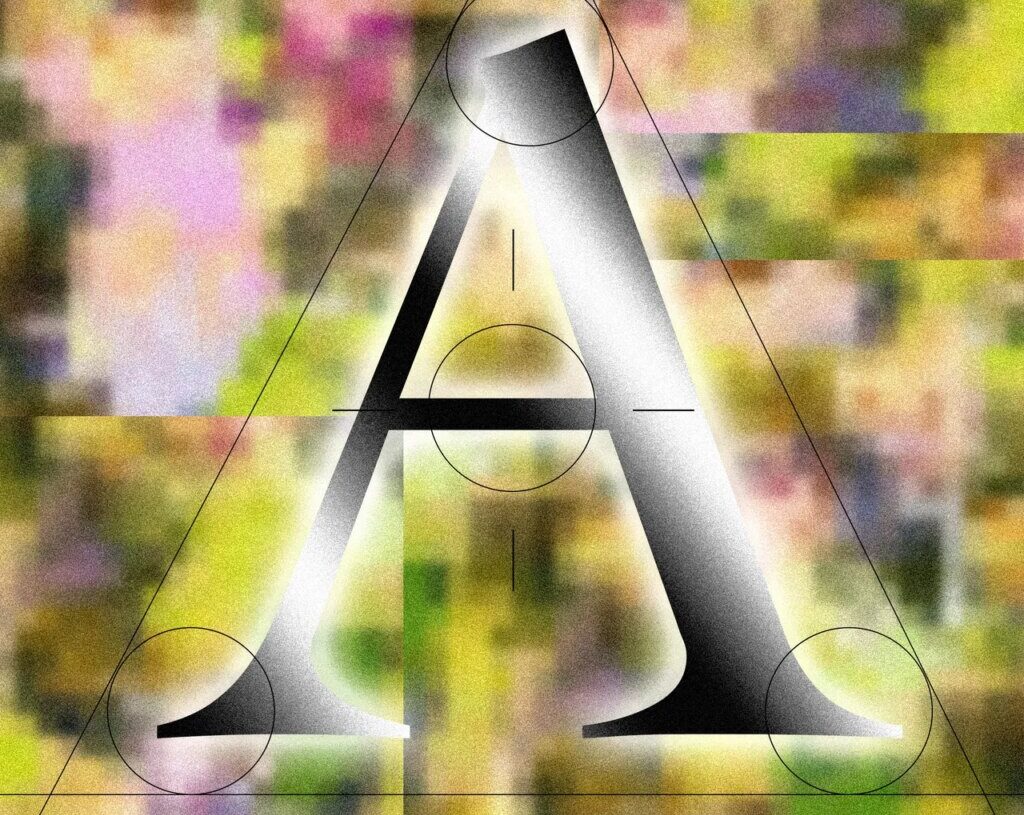
As public backlash to the seeming omnipresence of artificial intelligence intensifies, the collective quest to weed out—and reject—telltale signs of its use continues.
One of the first casualties, to my dismay, was em dashes—which are a great, and very human form of punctuation, by the way! There’s also the “rule of threes,” which is meant to scan as rhythmic, but often comes across predictable, hackish, and stale. And, of course, there are the clunky grammatical constructions of the “not X, but Y” variety.
Now certain fonts and typefaces—specifically serifs—seem to be defining (and giving away) AI, both in actual software, and in vibe-coded design boilerplates. Some are calling it “tasteslop,” the results of the effort to make generative AI designs seem superficially sophisticated or distinguished.
The shift away from slicker, more conspicuously computerized typefaces is something the San Francisco Bay Area writer, designer, and type practitioner Keya Vadgama has termed “the serif renaissance.” In a recent newsletter, published on her Substack, Vadgama suggests the move is a bid for companies to project more “personality and warmth.”
“It’s not that difficult to discern why AI-native companies in particular are being drawn to serif fonts: AI is inherently cold and without opinion,” she writes. “[Using serifs] signals ‘We’re AI! But real humans use (and made) our product! We swear!’”
“Serifs have an origin in calligraphy,” Vadgama tells WIRED. “It connotes a very human, fluid way of making letterforms.” Vadgama has noticed that Anthropic’s Claude was defaulting to serifs. Other AI companies—Runway, Perplexity, Manus—had also adopted similar typefaces in their UX and branding.
Reached for comment, Perplexity chief communications officer Jesse Dwyer tells WIRED: “Why wouldn’t we have human design? Perplexity is for people.”
Vadgama believes the use of serifs is as much about aesthetics as building confidence between users and brands. Certain font choices signal, even at some preconscious psychological level, trust. Sans serifs (your Arials, Calibiris, Helviticas) are too clean, too computer-y. Good old Times New Roman, and similar typographic designs, can feel a bit more dignified. Recently, Vadgama was doing some branding work with a (since-shuttered) AI startup, which favored the serif text. “A big part of it,” she says, “is, ‘How do we position ourselves in a way that people are not afraid of us?’”
Serifs can help build that conviction, or at least the illusion of it. Times New Roman itself was commissioned in the 1930s by Britain’s Times newspaper. The typeface carries a certain authoritative heft. Books and newspapers are printed using it. It was all but standardized in the decades before screen reading. Perhaps most famously, the Encyclopedia Brittanica—arguably the authoritative compendium of human knowledge, at least pre-World Wide Web—was set in Times.
“In the broad public, a serif carries connotations of scholarship,” says Ali S. Qadeer, chair of graphic design at the Ontario College of Art and Design in Toronto. “Claude is interesting. It’s using this slightly brown background to mirror a book page. It’s sort of emulating the feeling of reading print. And print has deeper associations with trust.”
As reported by The New York Times, even the US State Department has returned to using Times New Roman after Secretary of State Marco Rubio decried Calibri as “informal,” pegging the department’s adoption of the sans serif typeface on some wider, Biden-era DEI initiative.
Both Qadeer and Vadgama see the trend toward serifs as a rejoinder to AI’s perceived (and, indeed, literal) lack of soul, and the wider public suspicion of the technology. They’re not the only ones. Alongside the “tasteslop” discourse, people online have criticized the serification of AI aesthetics as “generic” and “very ugly.”
“If half the internet starts vibe coding ‘unique and interesting’ fonts without understanding the basics of design, those fonts will become associated with slop,” wrote one X user in response to a post about AI web design.
Human Touch
Flip back just a few decades and computerized design seemed harsh and ugly: slime-green fonts glowing fluorescently from clunky computer terminals. Think of those old IBM terminal typefaces. The eyes practically strain just remembering them. For Qadeer, who teaches the history of typography, this change is a part of a deliberate rebranding effort. “I 100 percent believe it’s an effort to soften people up,” he says. “It is a response to large-scale social criticism. The sterile look of tech that has dominated for the past 20 years has increasingly negative connotations.”
Not everyone is so despairing. While designer and founder Yitong Zhang described the transition to serifs as “cursed” on X, he doesn’t think it portends anything especially sneaky or sinister. “Somebody at these labs is trying to get these models to be good at design,” he says.“It’s pretty pragmatic.”
Zhang compares AI, in its present state of aesthetic maturation, to a teenager downloading and experimenting with different fonts. (Which computer-native of a certain age didn’t download Iron Maiden or South Park TTF font packs to fiddle around with?)
He likens this emergent style to “premium mediocre,” an idea coined by the blogger Venkatesh Rao, to describe a kind of popular, faux luxury. (“Premium mediocre,” Rao writes, “is the finest bottle of wine at Olive Garden.”) Of course, AI design choices are to a great extent self-replicating, as models train on outputs created by other models, serifs beget more serifs.
Good ole Claude itself pretty much confirms much of this. Prompted to account for its shift to serif typefaces, the chatbot cites issues of trust, authority, and “literary seriousness,” while also accounting for “heavy borrowing” and networked herd mentality. It also seems to acknowledge that slick, sophisticated, tastesloppy design choices operate as a kind of feint: “The clean lines, the fluid animations, the assured typography all communicate ‘This system knows what it’s doing.’ The aesthetic actively works against accurate mental models of what AI is.”
Vadgama agrees. “I do think there’s something a little dishonest in trying to use serifs to signal ‘We’re not one of those scary AI companies,’ when in reality, you still are,” she says. “You can use Comic Sans, if you wanted. It doesn’t stop you from still being an AI company.”